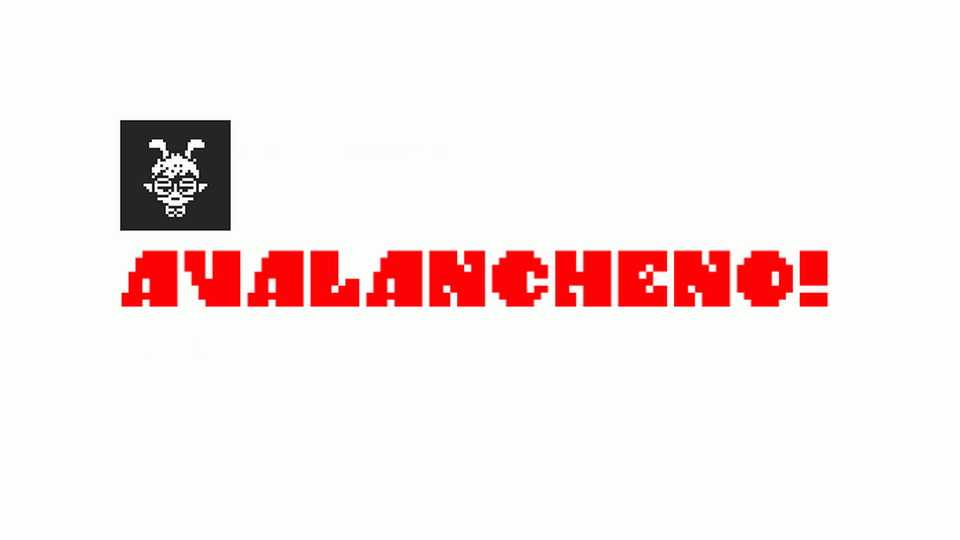
Download Avalancheno font, a pixel typeface inspired by the low-res bitmap lettering on retro displays. Avalancheno is a great choice for games, pixel art projects, posters, web, etc.
Designer: aurisbunni